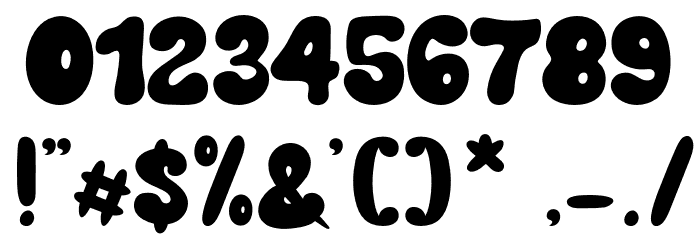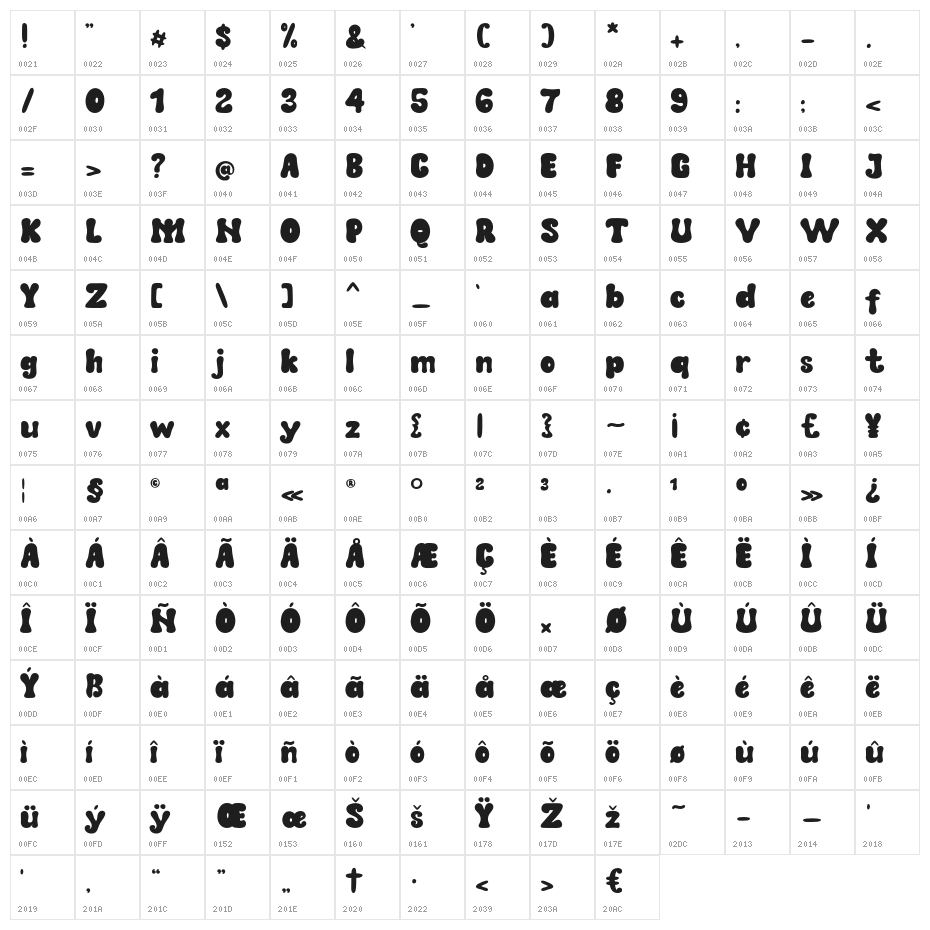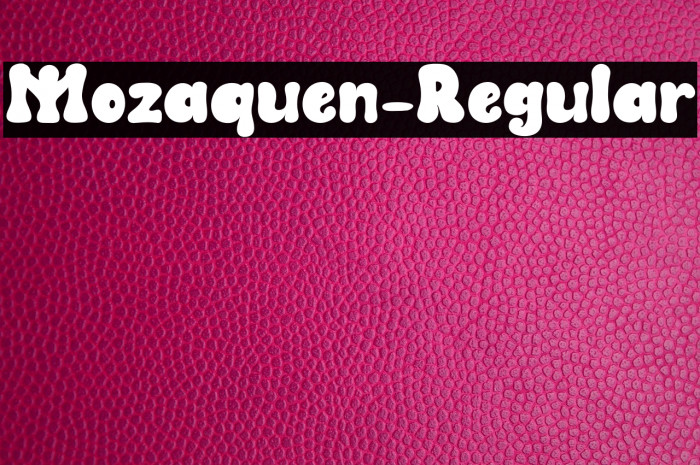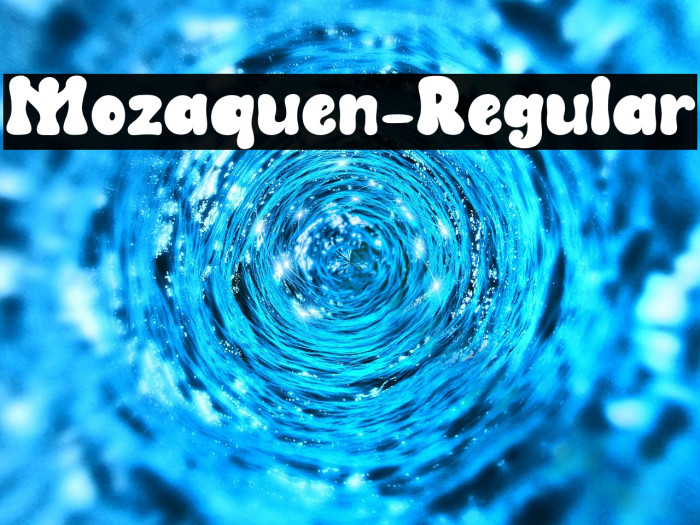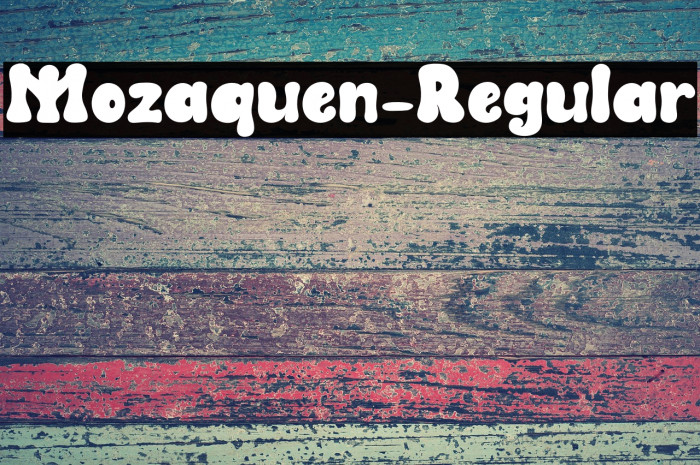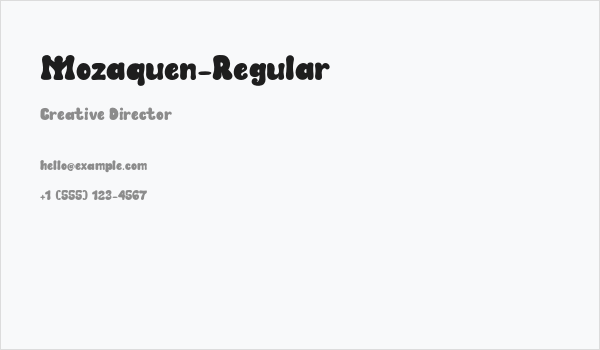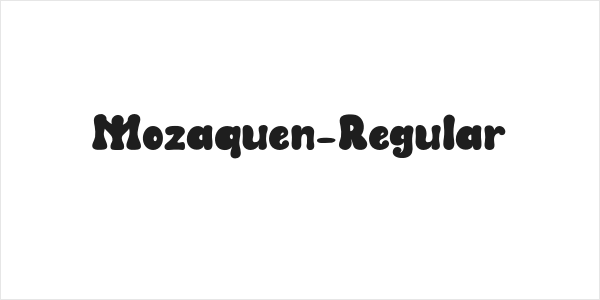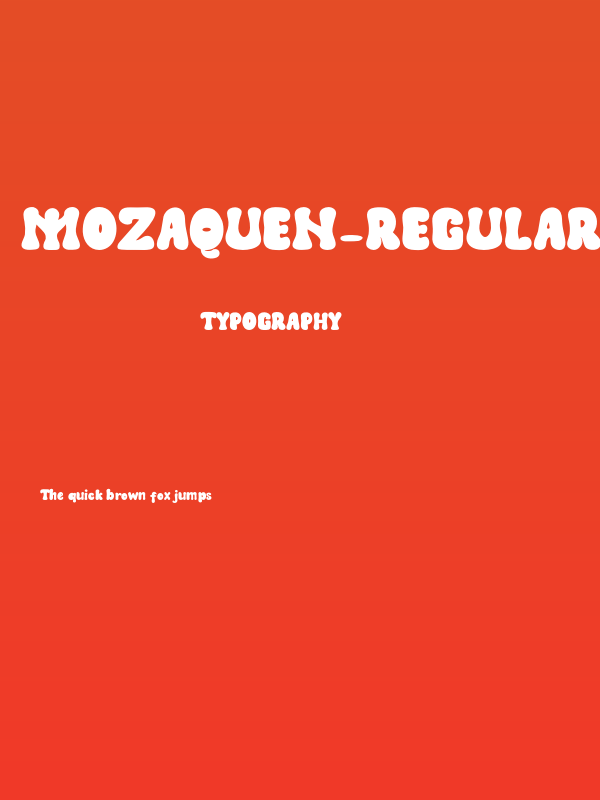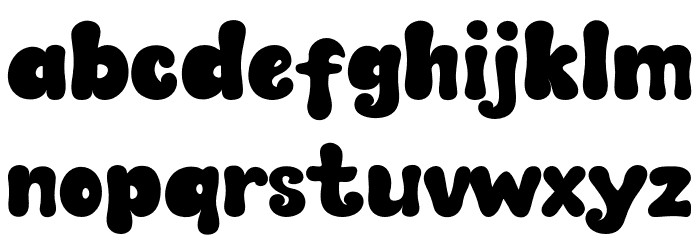
Mozaquen-Regular Font
Mozaquen-Regular Description
This font features a playful and bold design with rounded, bubbly characters that exude a sense of fun and creativity. Each letter is crafted with a thick stroke, giving it a substantial presence on the page. The rounded edges and soft curves create a friendly and approachable aesthetic, making it ideal for projects that aim to convey warmth and whimsy. The characters are evenly spaced, ensuring readability while maintaining a cohesive look. This font is particularly suitable for children's books, playful branding, and creative projects that require a touch of lightheartedness.
Overall StylePlayful
Proposed ProjectsChildren's books, playful branding, creative posters, and fun invitations.